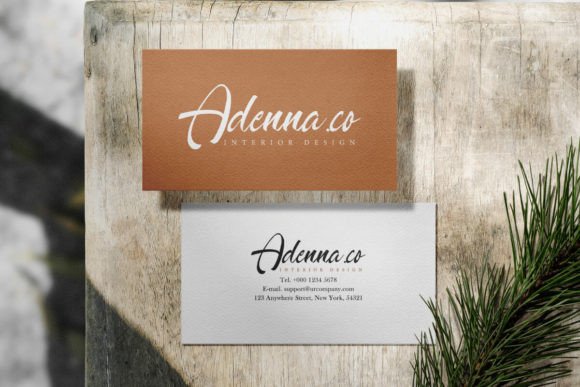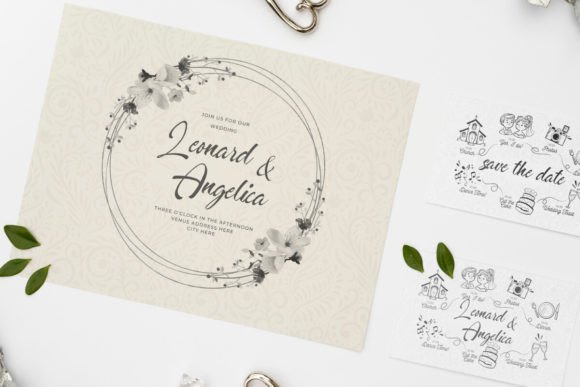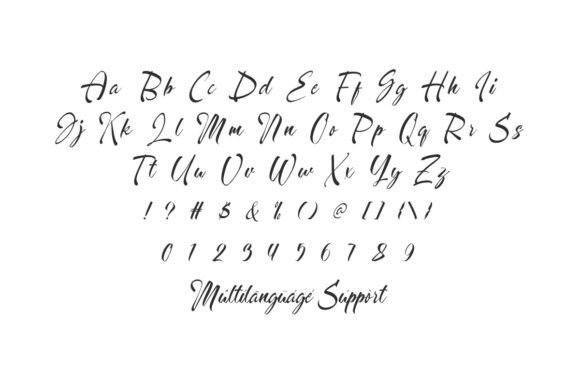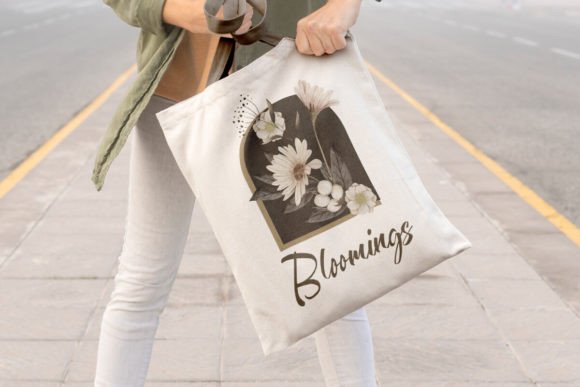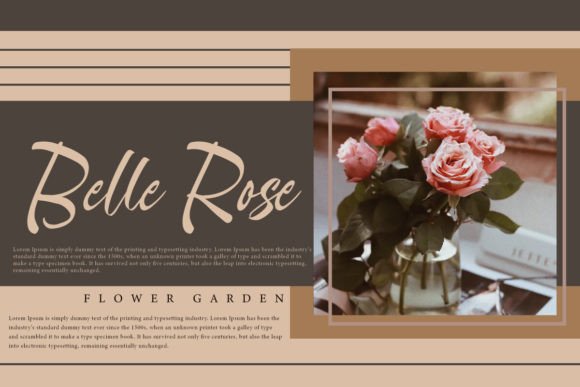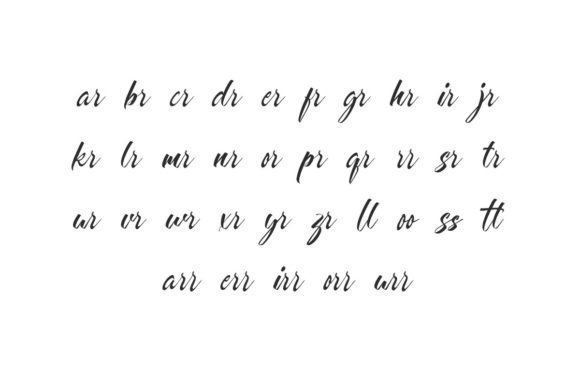
Fashioned Roses Font: Elevate Your Designs with Elegance and Sophistication
In the world of typography, a beautiful font can make all the difference in creating stunning designs that capture the essence of a brand or message. One such font that has been making waves in the design community is Fashioned Roses Font, a gorgeous calligraphy handwritten font created by Vintype Studio. This font is a masterpiece of elegance and sophistication, perfect for designers and crafters looking to add a touch of luxury to their work.
The Beauty of Fashioned Roses Font
Fashioned Roses Font boasts thick and thin lines that are meticulously balanced and neatly arranged, making it easy to read and a joy to behold. The font’s unique blend of classic calligraphy and modern handwriting styles creates a distinctive look that is both timeless and trendy. Whether you’re designing a logo, creating a wedding invitation, or crafting a social media post, Fashioned Roses Font is sure to add a touch of sophistication and glamour to your work.
One of the standout features of Fashioned Roses Font is its versatility. This font is perfect for a wide range of industries, including:
- Café and restaurant owners looking to create a warm and inviting atmosphere
- Event and wedding organizers seeking to add a touch of elegance to their invitations and marketing materials
- Fashion designers and brands looking to create a luxurious and high-end feel
- Florists and interior designers seeking to add a touch of sophistication to their branding and marketing materials
- Photographers looking to create beautiful and elegant portfolios
- Printing and design studios seeking to offer unique and high-quality fonts to their clients
Why Choose Fashioned Roses Font?
So, why should you choose Fashioned Roses Font for your design projects? Here are just a few reasons:
- Elegance and sophistication: Fashioned Roses Font adds a touch of luxury and glamour to any design project
- Readability: The font’s balanced and neatly arranged lines make it easy to read, even at small sizes
- Versatility: Fashioned Roses Font is perfect for a wide range of industries and design projects
- Unique style: The font’s distinctive blend of classic calligraphy and modern handwriting styles sets it apart from other fonts
Tips for Using Fashioned Roses Font
Here are a few tips for using Fashioned Roses Font in your design projects:
- Pair it with a simple font: Fashioned Roses Font is a statement font, so pair it with a simple font to create a beautiful contrast
- Use it for headings and titles: The font’s elegance and sophistication make it perfect for headings and titles
- Experiment with different colors: Fashioned Roses Font looks stunning in a variety of colors, so don’t be afraid to experiment and find the perfect hue for your design
Fashioned Roses Font is a stunning calligraphy handwritten font that is sure to elevate your designs with elegance and sophistication. With its unique blend of classic calligraphy and modern handwriting styles, this font is perfect for a wide range of industries and design projects. Whether you’re a designer, crafter, or simply someone looking to add a touch of luxury to your work, Fashioned Roses Font is a must-have font that is sure to impress.